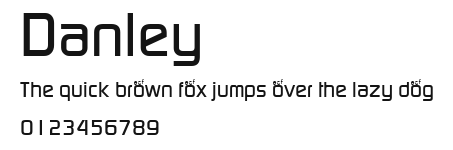
Danley Preview
• Font Name: Danley
• Full Font Name: Danley
About Danley.ttf
Danley.ttf is a modern, elegant sans-serif font designed for ultimate readability and visual harmony. Perfect for branding, headlines, web design, and print materials.